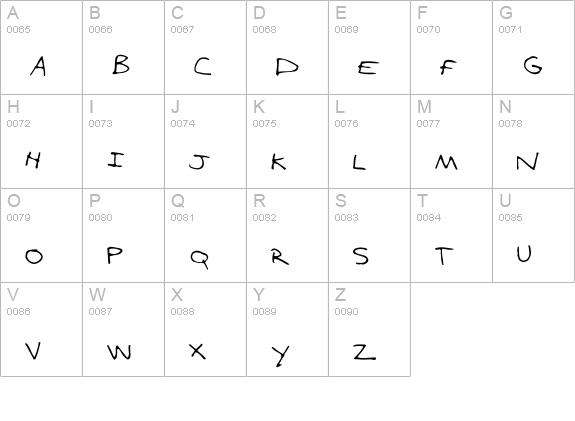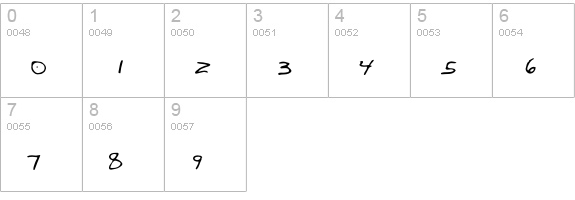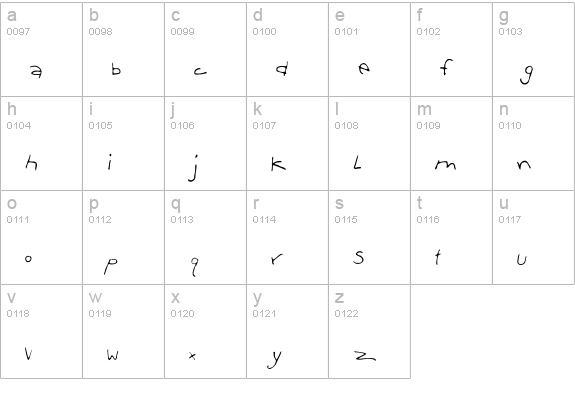
Scrawl Font Details
Introducing Scrawl, a captivating and expressive font that effortlessly captures the essence of handwritten charm. With its unique and irregular strokes, Scrawl brings a touch of authenticity to any design project, adding a personal and artistic flair that is sure to leave a lasting impression. Whether you're looking to spice up your branding, create eye-catching posters, or add a whimsical touch to your social media graphics, Scrawl is the perfect choice. Its dynamic and organic letterforms flow seamlessly together, mimicking the natural movements of pen on paper. Each character exudes a sense of individuality, making Scrawl an ideal font for those seeking a distinct and personalized touch. The versatility of Scrawl knows no bounds, as it effortlessly adapts to various design styles and themes. From playful and lighthearted to elegant and sophisticated, this font can effortlessly enhance any creative endeavor. Its timeless appeal and versatility make it an essential addition to any designer's toolkit. One of the best parts about Scrawl is that it is available for free download at FontsMarket.com. That's right, this captivating font can be yours without spending a dime. FontsMarket.com is a trusted source for high-quality fonts, and they offer Scrawl as a freely accessible resource, ensuring that everyone can enjoy its beauty and versatility. So, why wait? Unleash your creativity and embark on a design journey like no other with Scrawl. Download it today from FontsMarket.com and let this enchanting font breathe life into your projects, leaving a lasting impression on all who behold it.